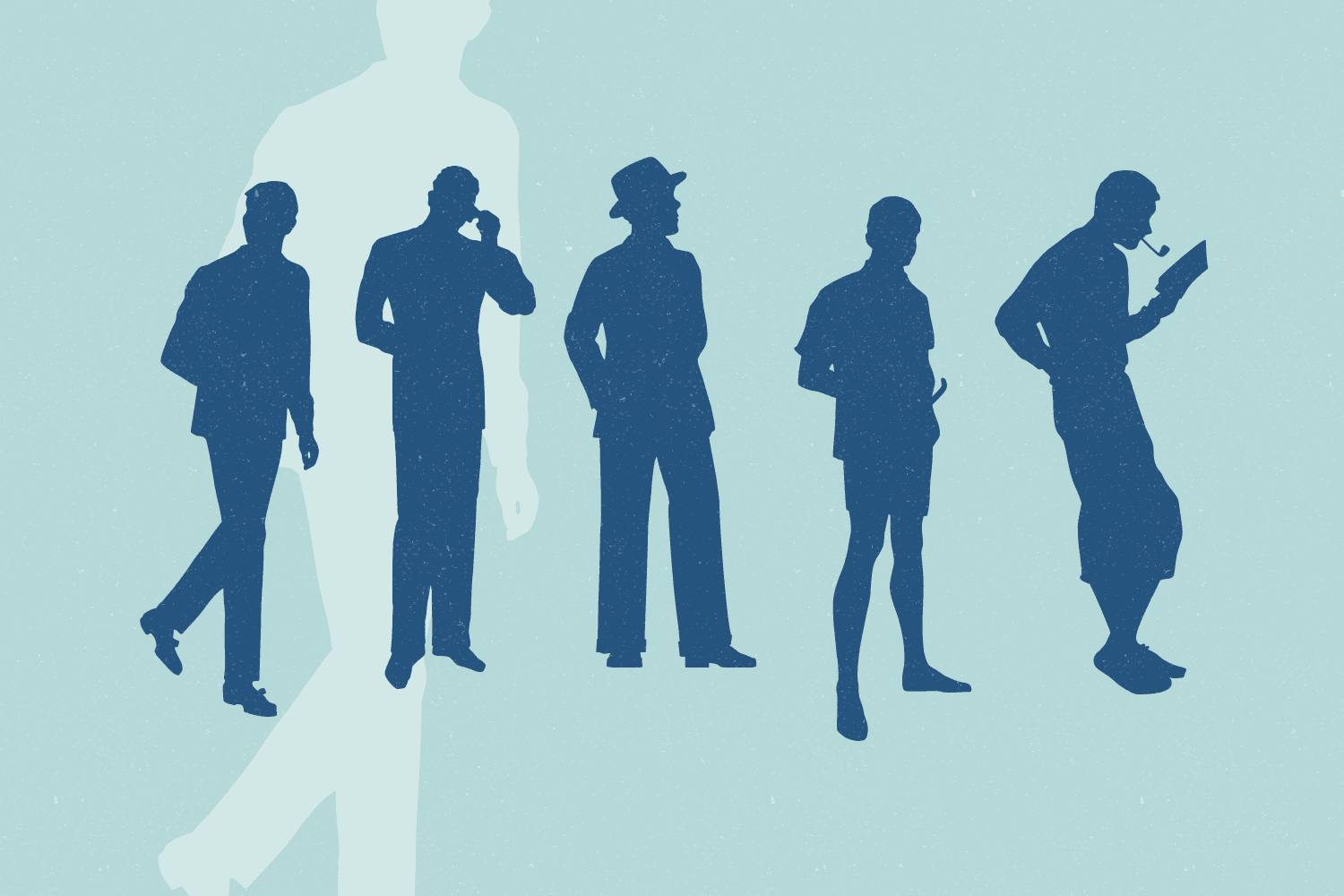
Sewing Patterns 3
Sewing Patterns 3 is the latest installment in the Sewing Patterns font series and this time it's all menswear. This dingbat was inspired by men's fashions from the 1920s to the 1960s. Like it's predecessors, the numbers take a quick dive into children's styles from those eras.